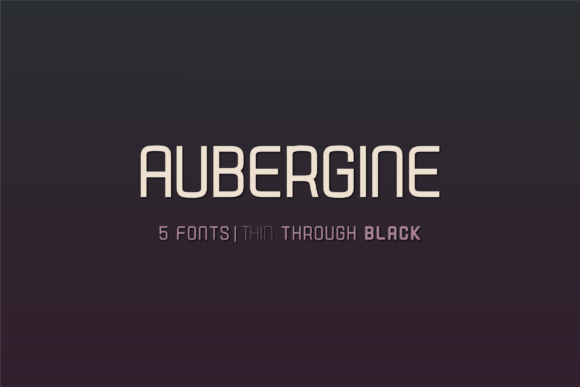
Introducing Aubergine: The Elegant and Versatile Font Family You Need
The Aubergine Advantage: Elegance, Modernity, and Versatility
Aubergine is more than just a font – it’s a design solution. With its five distinct weights—THIN, LIGHT, REGULAR, BOLD, and BLACK—it offers a wide range of creative possibilities, making it the perfect choice for designers and content creators. Whether you’re aiming for a subtle and delicate touch or a bold and impactful statement, this font family’s seamless blend of sophistication and contemporary style ensures your projects will shine with distinction.
What I Love About Aubergine ✨
- ✅ Elegant and refined design that’s perfect for luxury brands, high-end products, or sophisticated editorials
- ✅ Highly versatile with five weights to suit any design need
- ✅ Beautifully crafted OpenType features, glyphs, and stylistic alternates for added creativity
- ⚠️ Some users may find the font too delicate for certain applications, such as body text in print materials
- ⚠️ Limited availability of certain special characters, which may require manual editing
The Designer Inspiration Behind Aubergine
Aubergine was designed with the goal of creating a font that embodies the perfect balance of elegance and modernity. The design team drew inspiration from classic serif fonts, while incorporating contemporary elements to create a truly unique and versatile font family.
| What makes Aubergine unique? | Aubergine’s unique blend of elegance, modernity, and versatility makes it a standout font family. |
| Is Aubergine suitable for body text? | While Aubergine is primarily designed for headlines and titles, it can be used for body text in certain applications. However, it’s recommended to use a larger font size and adjust the line height accordingly. |